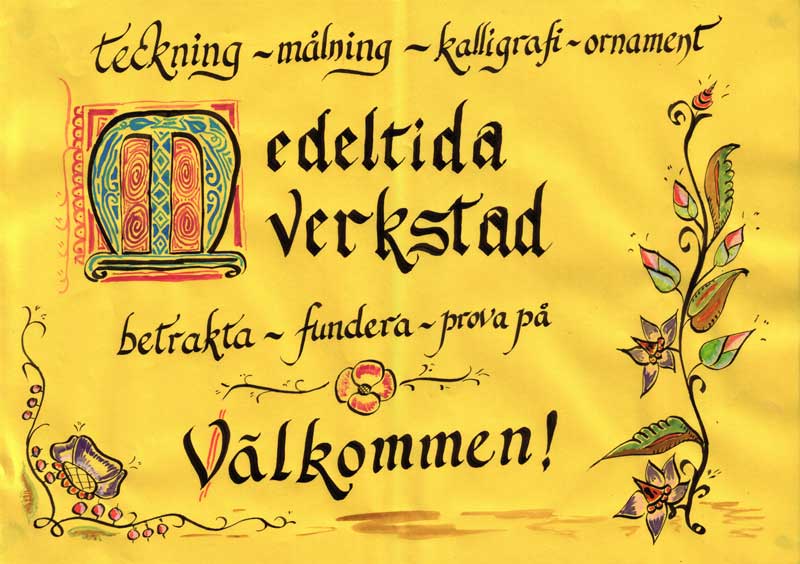
"Oh yes, indeed, it's been a dream ever since younger days, when I was collecting affordable editions of the books of hours and the Book of Kells and renaissance writing manuals - and of course that completely dog-eared and worn-out Letraset catalogue from the 1960s was like a secret bible, a source of inspiration in troubled times, whispering that there really is a better world, where everything is beautiful, everything stands in proportion to everything else, all characters and lanuages and sizes are equally important ...
"I've always copied the letters by hand to make birthday cards and signs, and I have one published book which is entirely hand-written. I used to dream that one day I might be able to do something a bit more systematic with the letters, with medieval & renaissance calligraphy, the work of the old printers, my handwriting and so on... And then suddenly it all became possible, with the 'Fontographer' program for creating typefaces and fonts, affordable as part of the FreeHand Graphics Studio ... and now the most beautiful results are accessible with little more than an 'entry-level' scanner and a mouse-click to activate an "automatic trace" command ...
I've written lots at the Fontografia web-site about how you can use fonts and how you can make them and my own experiences, with some hints to help other people starting out on a similar journey. Fontographer itself feels a bit long in the tooth now, and I'm so happy to have discovered its successor in the serious font-making world, the FontLab suite of programmes, and to have come into dialogue with its amazing and brilliant creators.
"Then out of the blue I heard from Richard Bradley, designer of Bradley Hand which Microsoft ship with their programmes, and other gems which they don't, wondering how he might get some circulation for his new, beautiful, pen-and-ink type-designs in an exclusively-digital world; that led to me playing a bit with them and getting very excited about the results, many of which you can see in the New Renaissance Fonts listing.
"Apart from those, my own fonts are based on my experience of renaissance culture, partly direct scans from older writing books and beautiful writing, partly newer designs inspired by renaissance models, some drawn and painted by others in my circle like Karin and Dagmar and Anders."